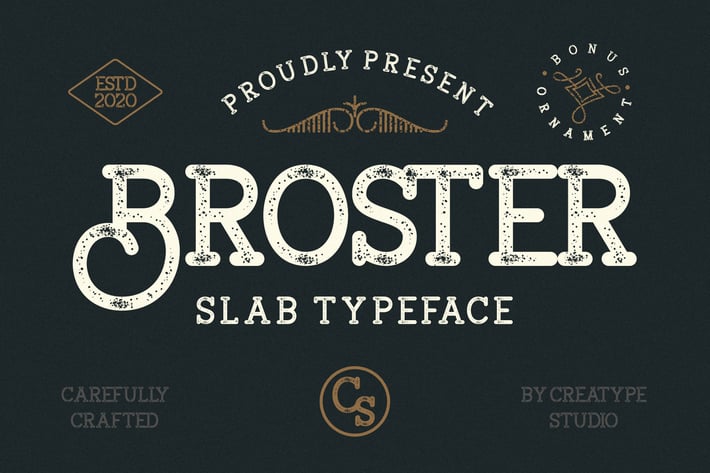
Broster Slab Typeface
Broster is a slab typeface with stamped looks and bonus ornament.
Broste is perfect for branding projects, logo, wedding designs, social media posts, advertisements, product packaging, product designs, label, photography, watermark, invitation, stationery and any projects that need handwriting taste.
Ton of glyphs
Bonus ornament illustrations
Ligature & Alternate
Fonts include multilingual support for; Afrikaans, Albanian, Catalan, Czech, Danish, Dutch, English, Estonian, Finnish, French, German, Hungarian, Icelandic, Italian, Latvian, Lithuanian, Norwegian, Polish, Portugese, Slovak, Slovenian, Spanisch, Swedish, Turkish.